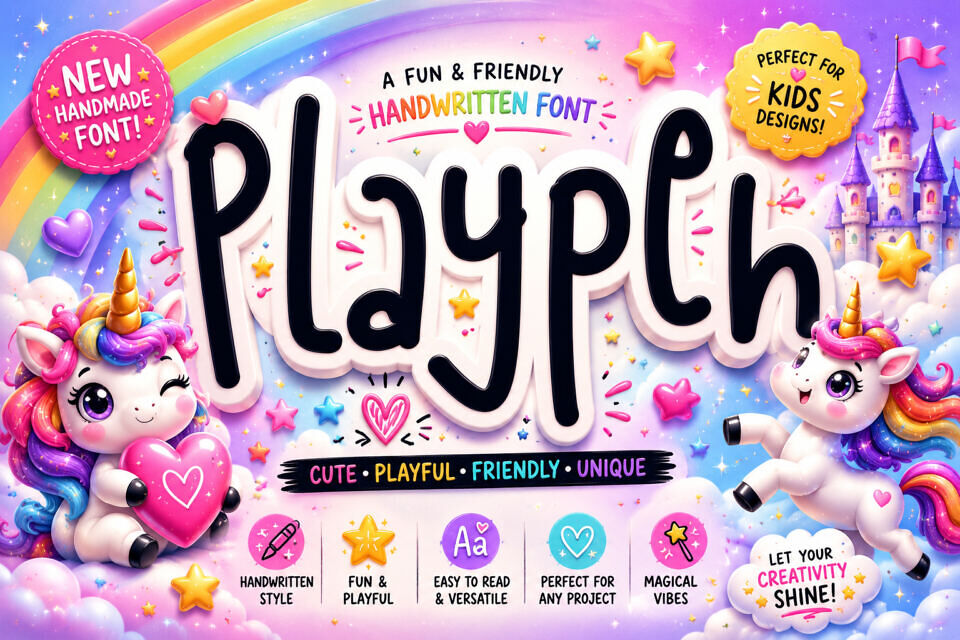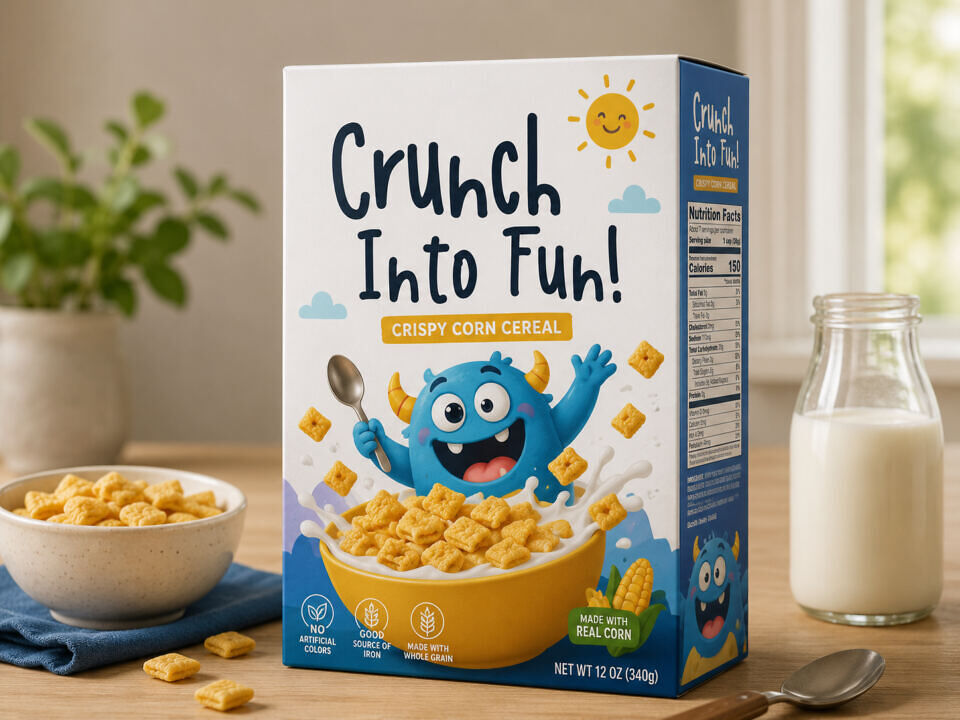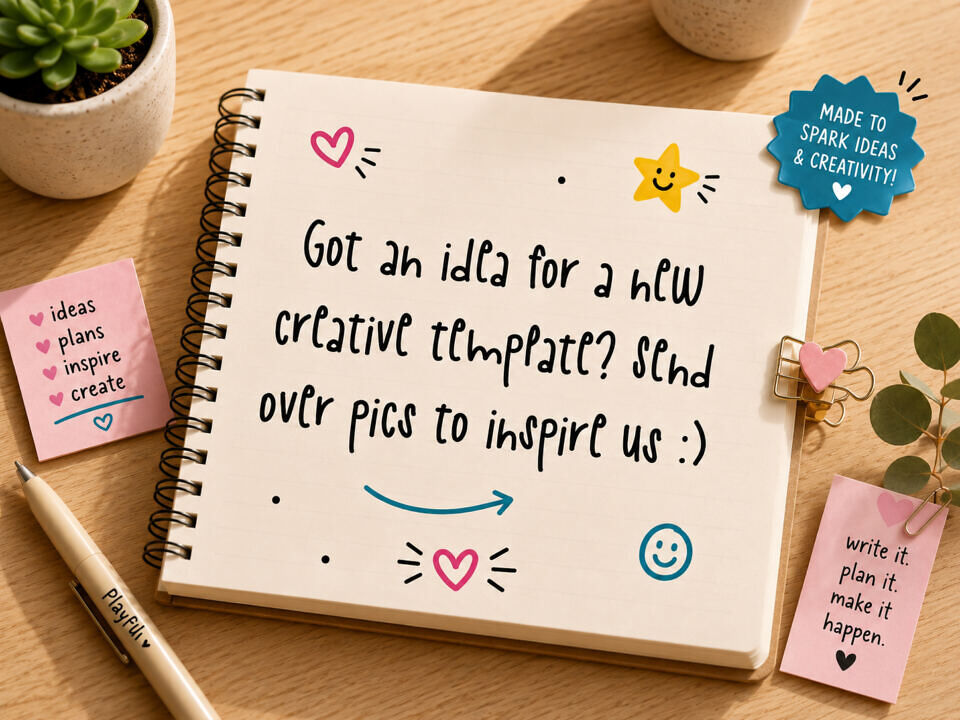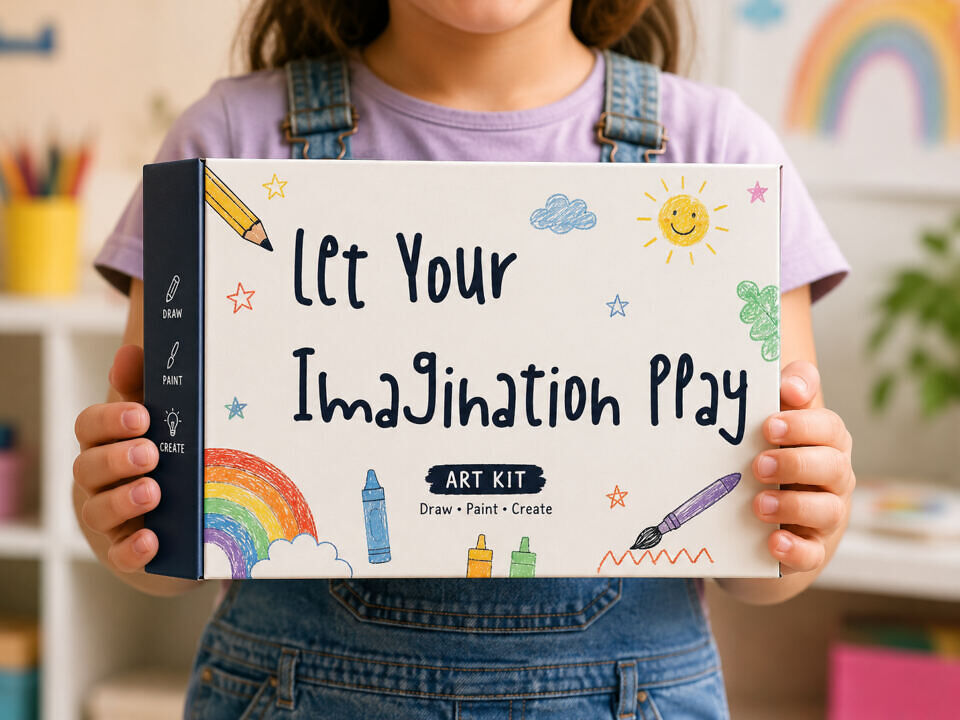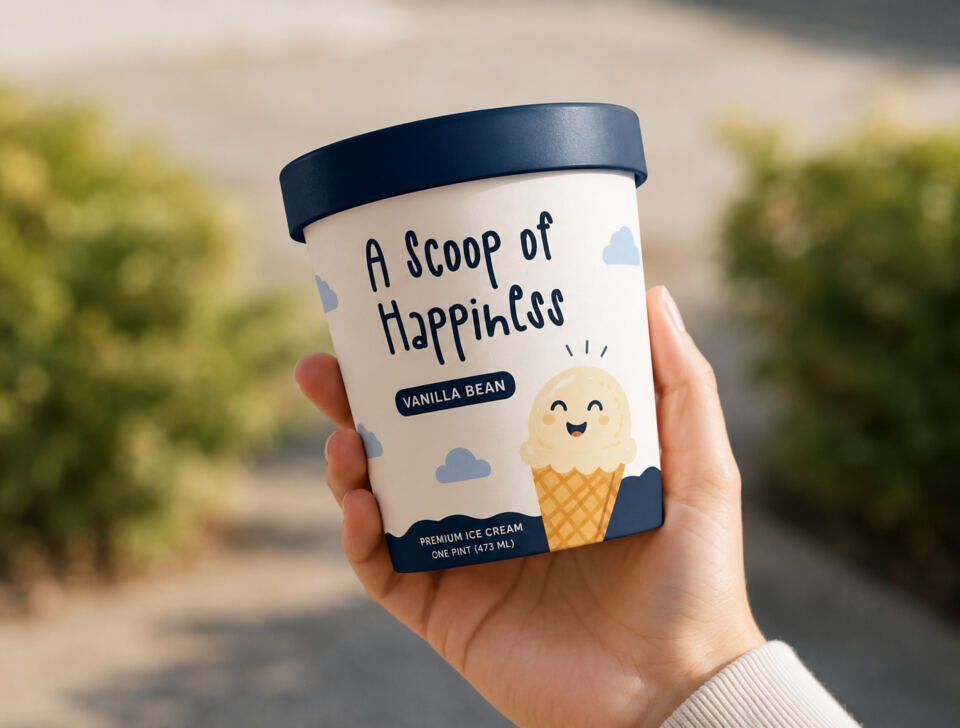
Playpen is a playful handwritten display font inspired by natural marker strokes and carefree childhood doodles. Its tall, narrow letterforms, irregular curves, and hand-drawn personality create an authentic, friendly look that feels warm, creative, and approachable.
Perfect for designers who want to add a personal touch and whimsical charm to their projects. Playful handwritten fonts are often valued for their personality, warmth, and authentic human feel.